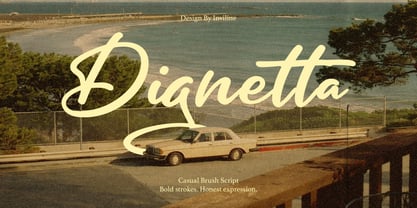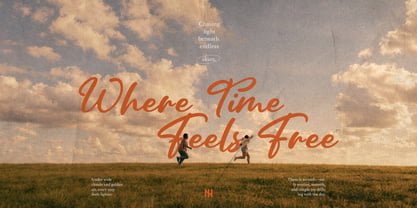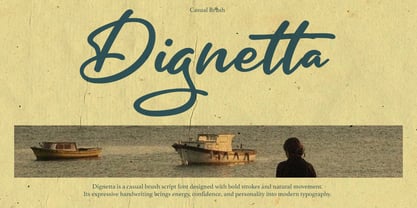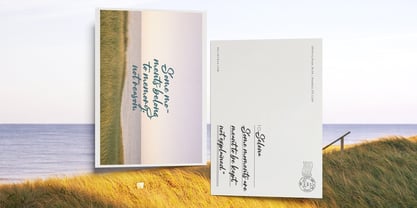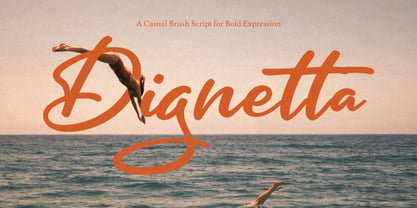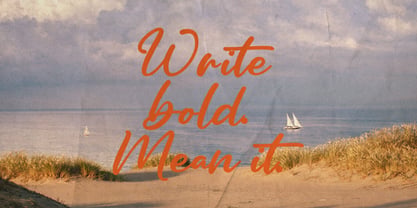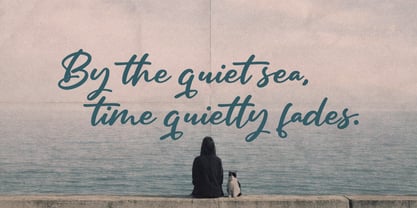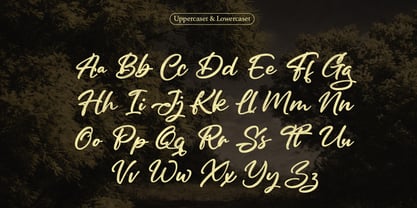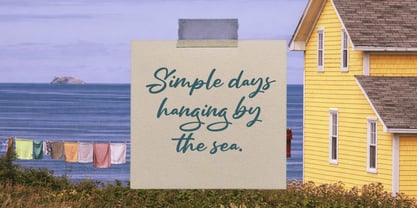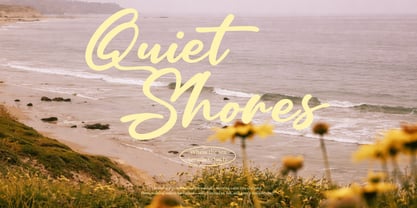
Dignetta Script
by Inviline
The Dignetta Script Font Family was designed by Virgiawan Listanto and published by Inviline. Dignetta Script contains 1 styles. More about this family
Dignetta is a casual brush script font that exudes confidence with a warm, honest touch. Inspired by the fluidity of handwriting and the liberating essence of the sea breeze, it features bold strokes and a natural movement that infuse vitality into your text. Perfect for crafting quotes, postcards, brand visuals, and creative editorials, Dignetta adds an expressive personality and nostalgic softness to any project. Its versatile style enhances branding efforts, web design, and editorial layouts, making it an essential addition to your creative toolkit.
Designers: Virgiawan Listanto
Foundry: Inviline
Inviline was founded approximately two years ago in Bandung, Indonesia, based on the love some of us have for fonts. At Inviline, we specialize in designing high-quality and creative fonts that cater to various design needs. Our focus is on delivering unique and versatile typefaces that combine aesthetic appeal with functionality. Each font is crafted with precision and attention to detail, providing designers with the tools they need to enhance their projects, from branding to digital media and beyond.Driven by a passion for typography, Inviline strives to create fonts that not only enhance the visual impact of designs but also deliver a seamless user experience. We are committed to innovation and excellence, ensuring that each font meets the highest standards of quality and versatility.